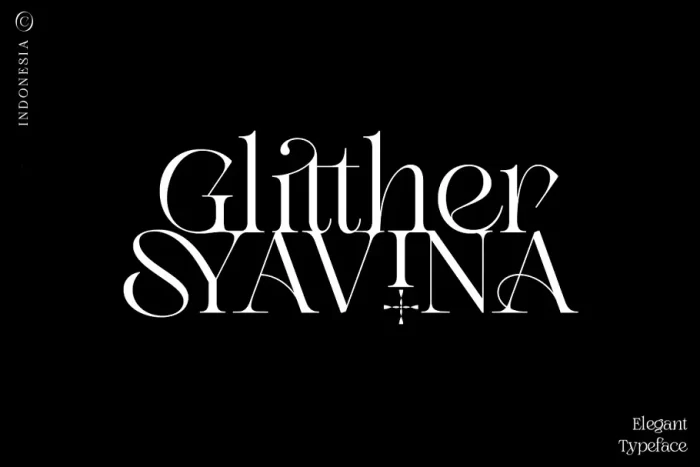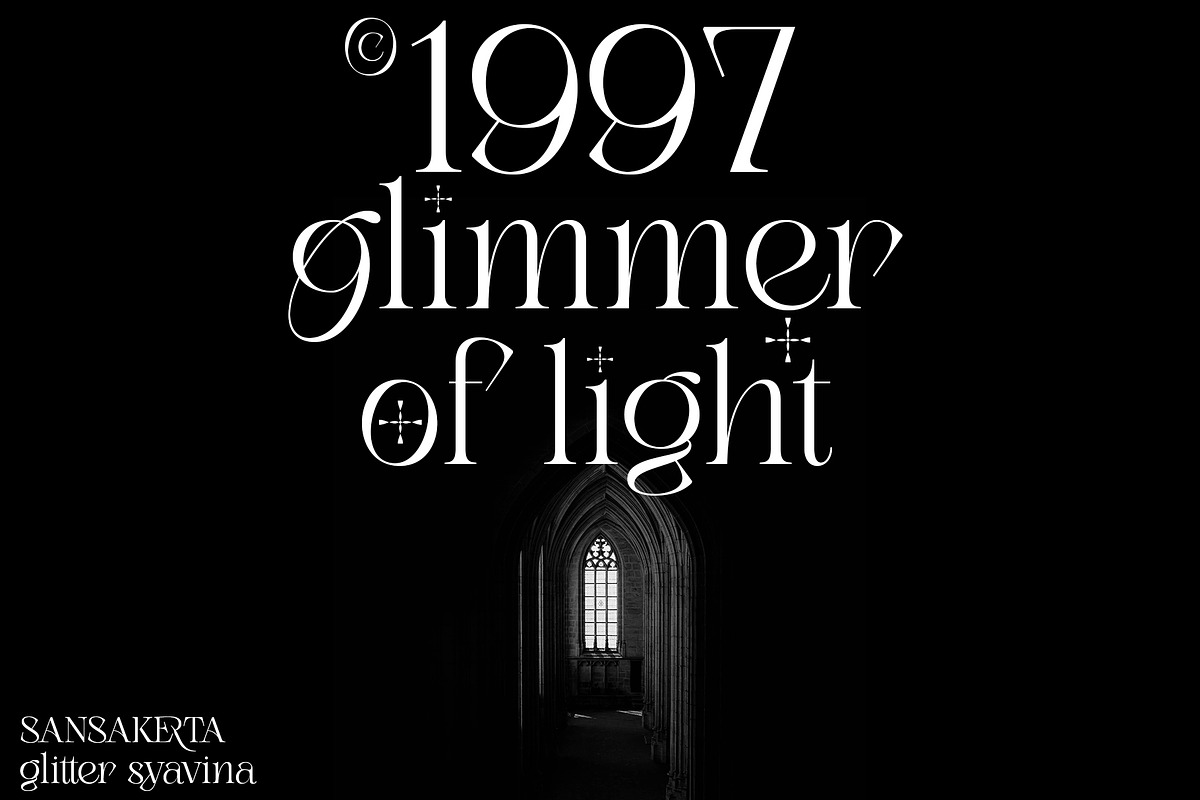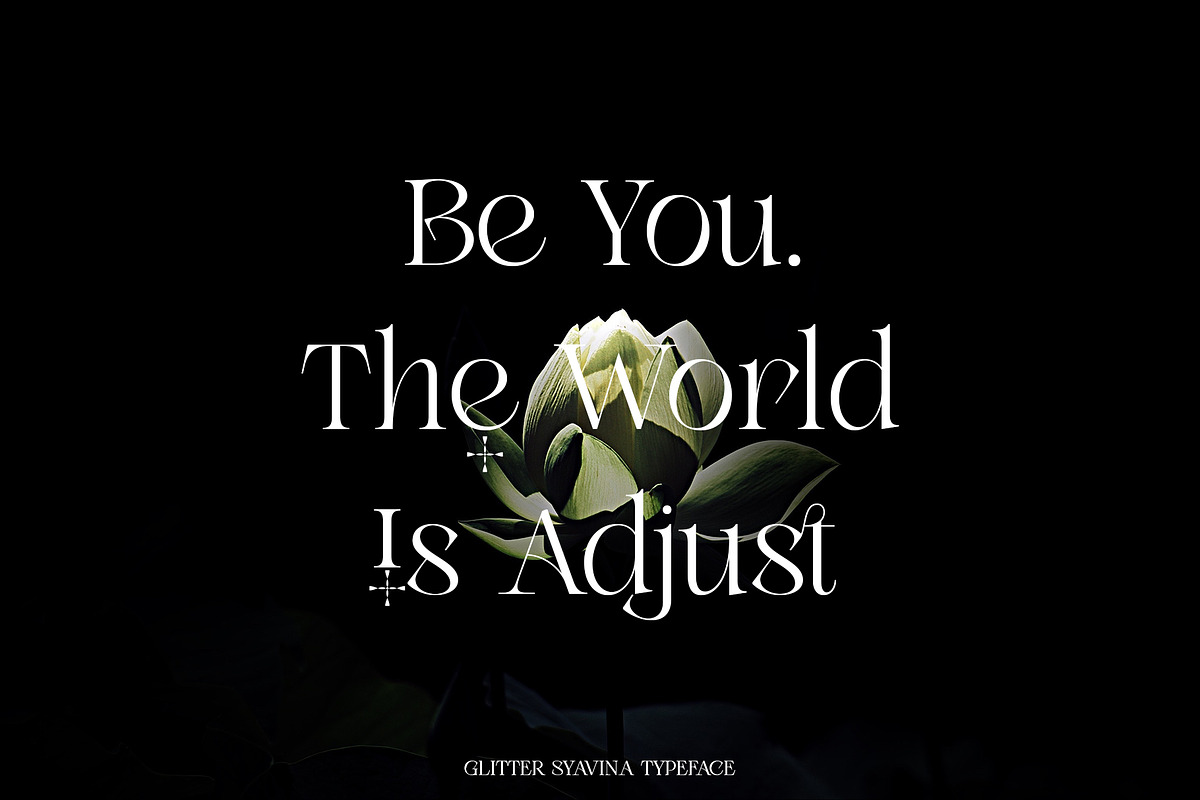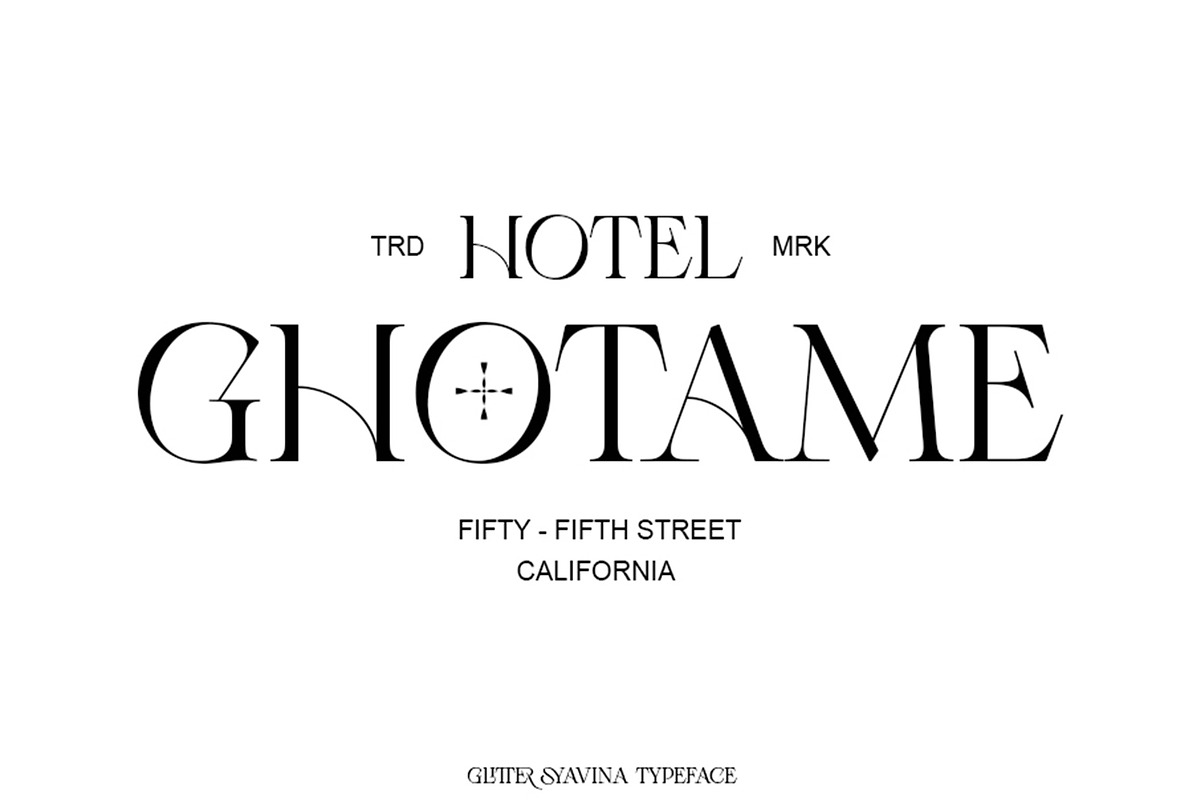
Glitther Syavina Font
Glitther Syavina is a fancy modern vintage serif typeface with beautiful ligatures, tons of special alternative glyphs, and multilingual support. It’s a very versatile font that works great in large and small sizes. Perfect for editorial projects, logo design, clothing branding, product packaging, magazine headers, or simply as a stylish text overlay to any background image.
• Lowercase and Uppercase
• Stylistic Alternates & Ligatures
• Numerals & Punctuation